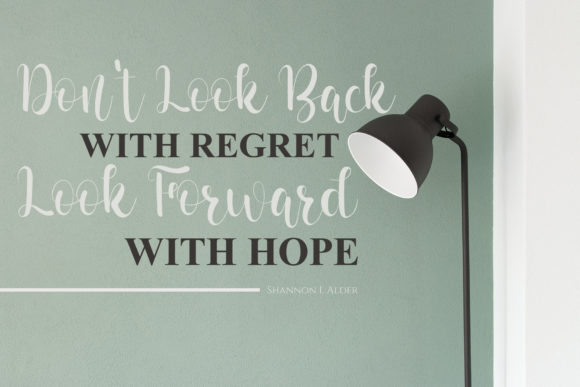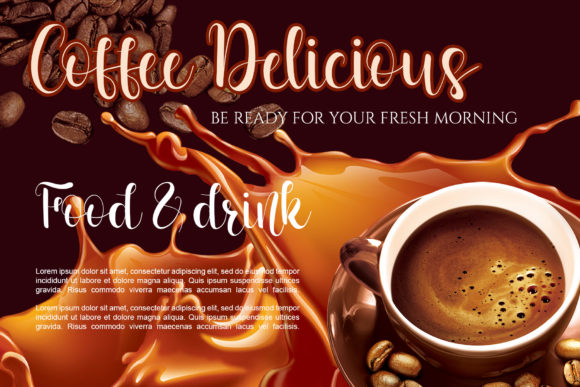
Berliana Script Font
db-ku.com - Script & Handwritten -- Berliana Script is an elegant and dainty handwritten font that features sweet and delicate swashes. This original look will appeal to a wide range of crafty ideas, from letterheads and titles, to stationery.